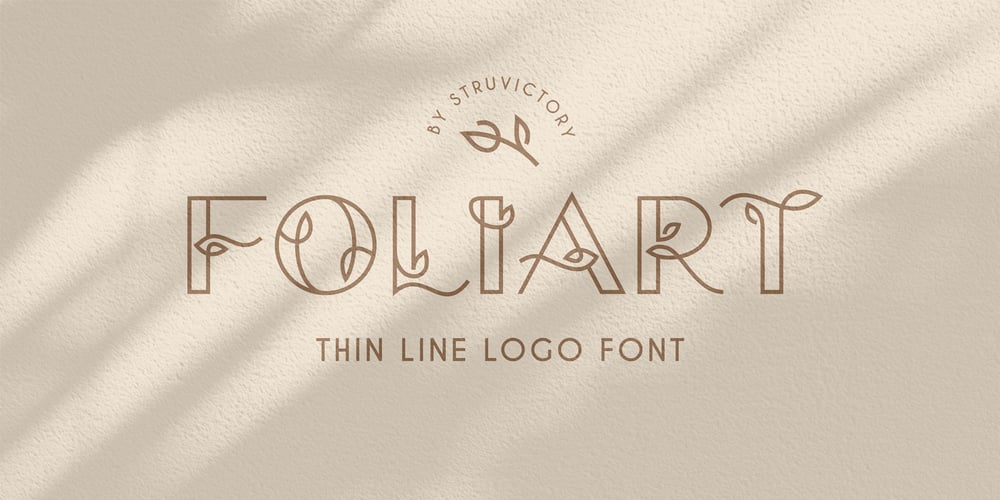
Foliart
Foliart font
Foliart Font Family was designed by Viktoryia Strukouskaya, Viktor Strukouski and published by Struvictory.art. Foliart contains 2 styles and family package options. Foliart is thin line uppercase font with floral motives. The typeface includes Decorative and Symbol styles. To get an elegant and unique design, combine letters with symbols.Foliart is suitable for feminine business branding, eco-friendly and minimalistic art, social media design. The font works great for craft products branding and packaging (organic cosmetics and food, jewelry, floristics, handmade soap ect.) Also use individual letters and symbols to create logos and monograms. Foliart combines well with modern graphics: abstract shapes and line art.